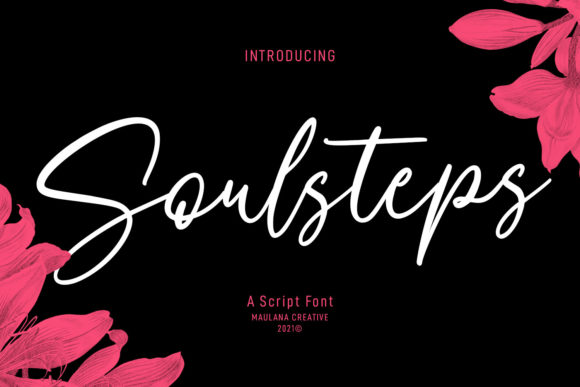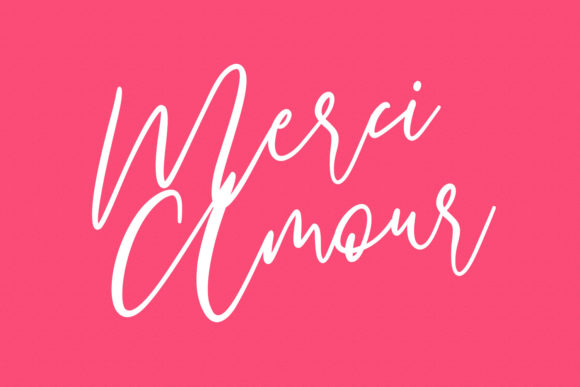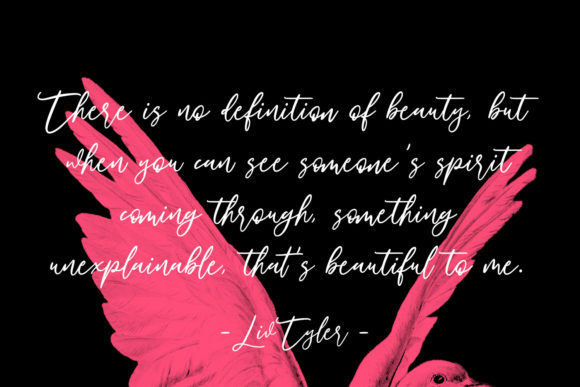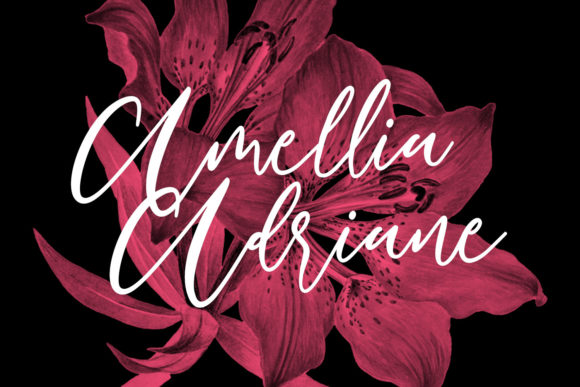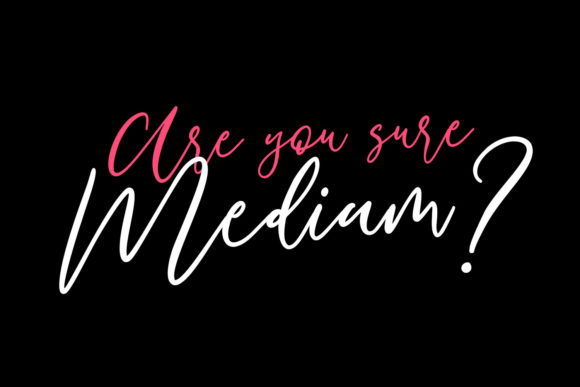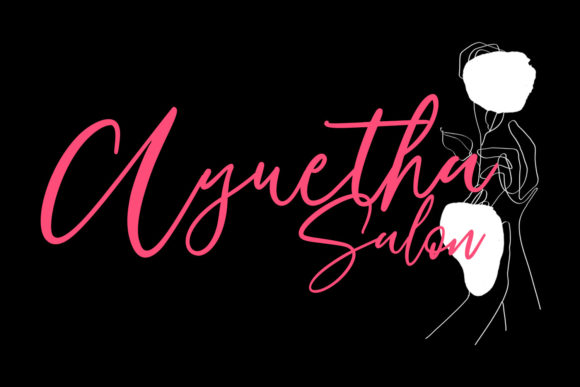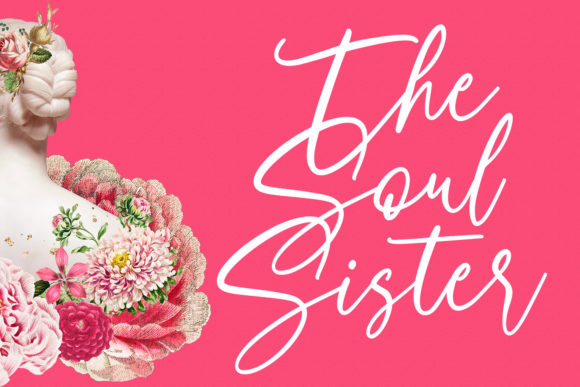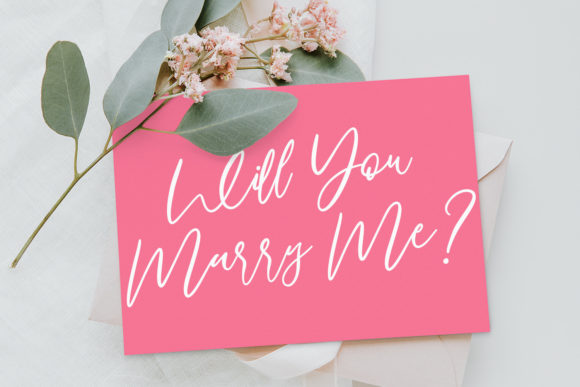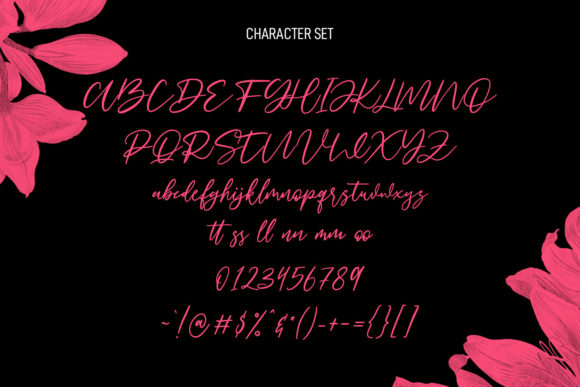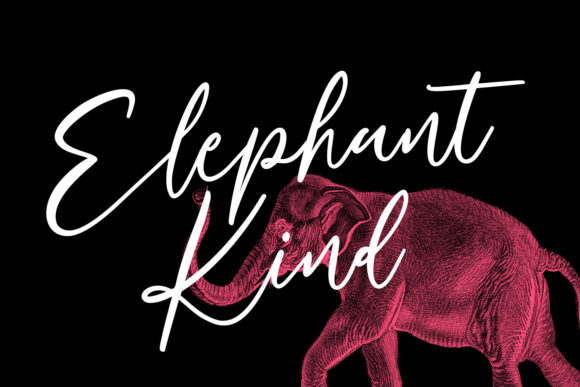
About Soulsteps Font
Soulsteps is a lovely and cursive script font that exudes elegance and class. This font was particularly crafted for those who need a beautiful and refreshing look to their designs.